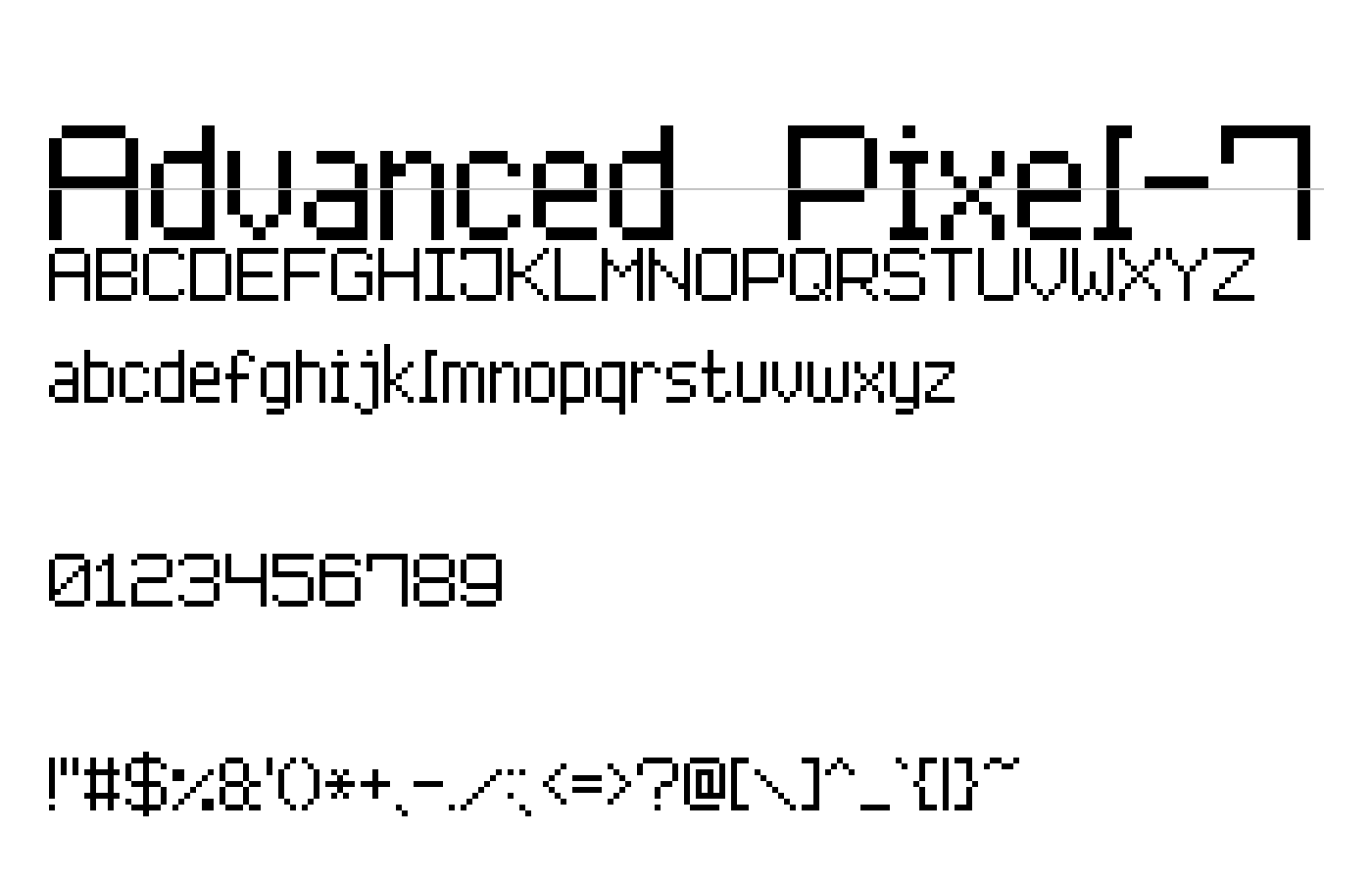
Advanced Pixel-7 is a clean, geometric sans serif font with a digital, pixelated design reminiscent of classic video game typography. Its thin, evenly weighted strokes and square, blocky shapes offer a modern, tech-inspired feel, making it ideal for digital interfaces, retro-themed graphics, and tech branding. This font works best in headlines, logos, and on-screen text where its distinctive pixel style can stand out clearly and evoke a nostalgic yet contemporary vibe.
Advanced Pixel-7 Font
About Advanced Pixel-7 Font